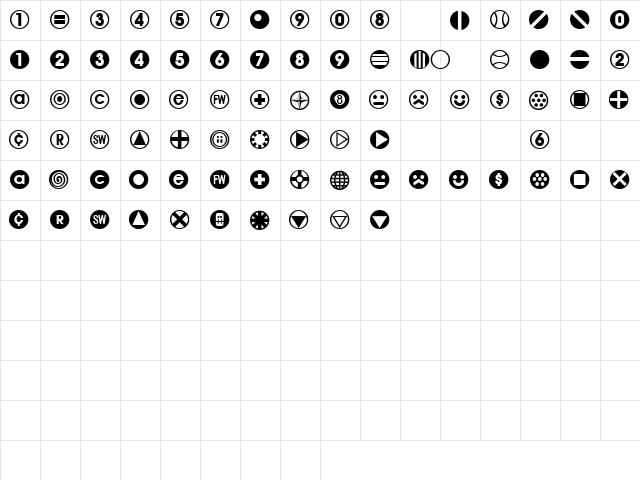
FFX Buttons 2 Regular Font Preview
FFX Buttons 2 Regular
FFX Buttons 2 Regular Font Details
Design Context for FFX Buttons 2 Typeface
FFX Buttons 2 is a composed and adaptable typeface that performs quietly and consistently across a wide range of design contexts.